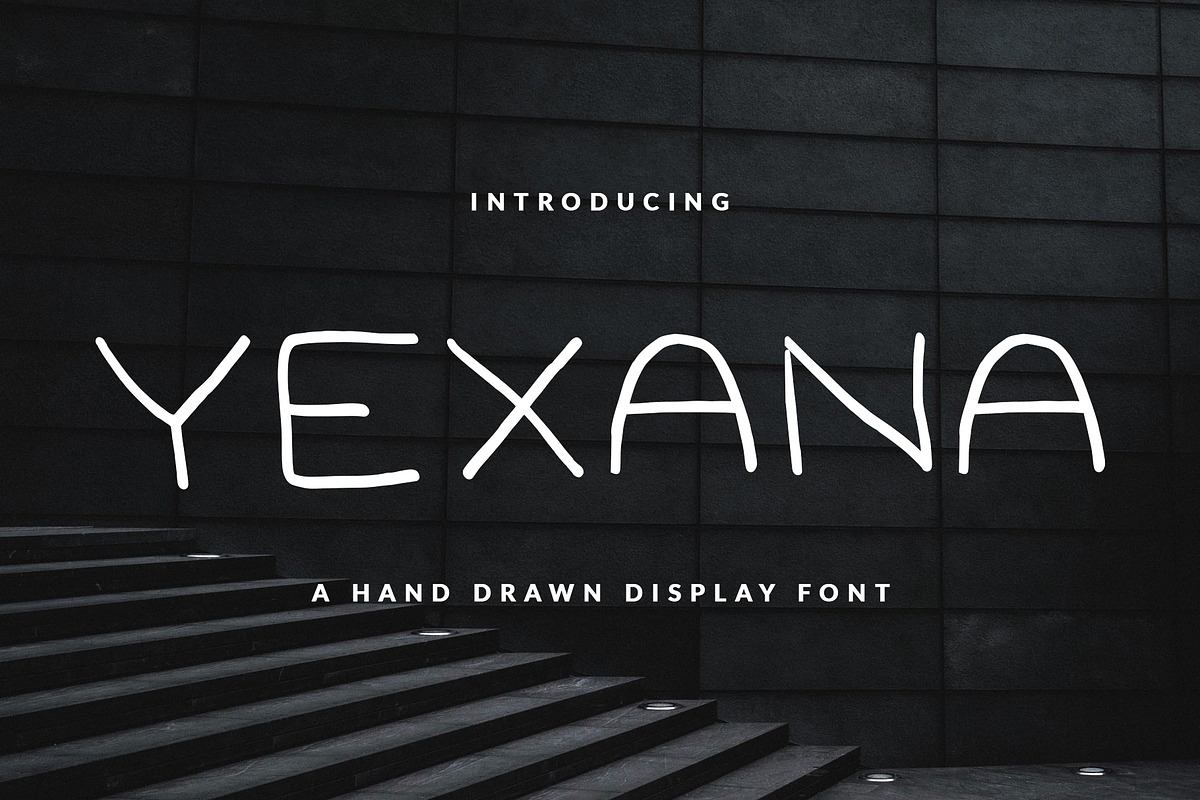
YEXANA FONT FOR HEADER & BOOK Free Download
The Yexana Font for Header & Book Free Download is a stylish and versatile typeface, perfect for both headers and body text in book designs, websites, and print materials. With its elegant, clean lines, this font provides a professional and modern feel to any project. Please note, for commercial use, a license must be purchased. You can download it for free for testing purposes.
Designed to be both readable and visually appealing, the Yexana Font for Header & Book Free Download is an excellent choice for projects that require balance and clarity. Whether you're designing a book, a website, or a magazine, this font works seamlessly for both large headlines and detailed text.